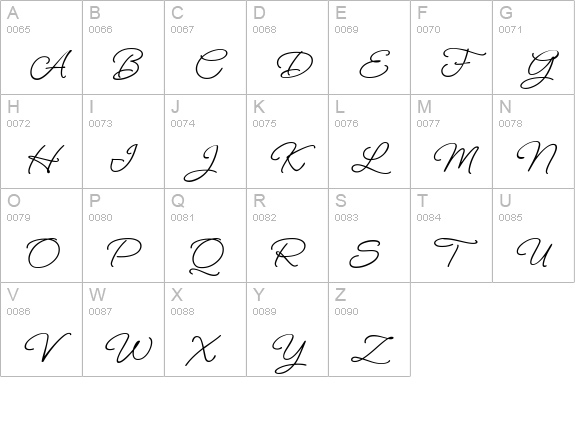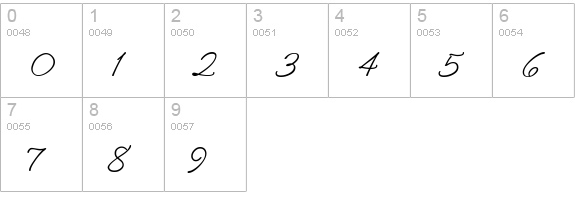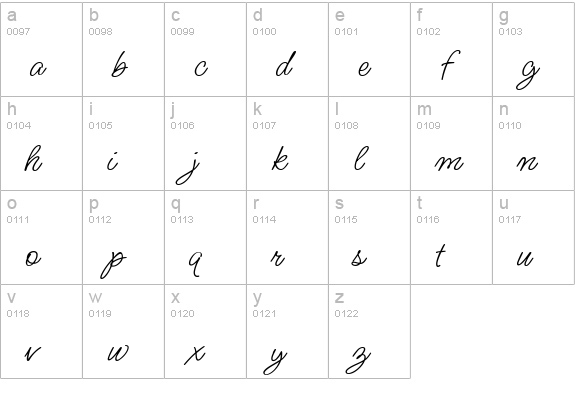
MsMadi ROB Font Details
Introducing MsMadi ROB font, a stunning and modern typeface that will elevate your designs to the next level. This font exudes elegance and sophistication, making it perfect for a wide range of projects including branding, logos, invitations, and more. With its clean lines and unique style, MsMadi ROB font is sure to make a lasting impression. The best part? MsMadi ROB font is completely free to download at FontsMarket.com! Yes, you read that right - you can add this beautiful font to your collection at no cost. Don't miss out on the opportunity to enhance your designs with this gorgeous typeface. Download MsMadi ROB font today and let your creativity soar!